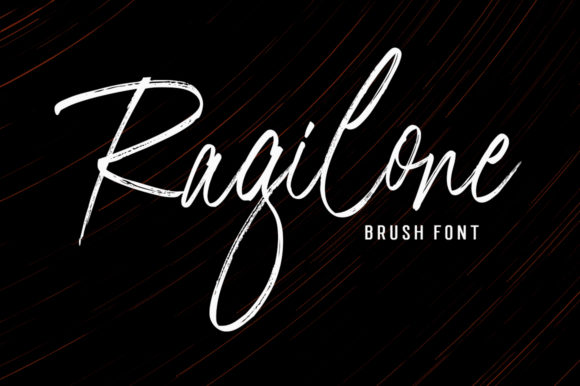
Step into the world of Ragilone Font, where elegance and authenticity intertwine to create a lettering masterpiece. This captivating script font, lovingly crafted by LetterFreshStudio, is inspired by the harmonious blend of brush pen and pencil, resulting in a design that exudes charm and originality.
With its distinctive brushstrokes and pencil textures, Ragilone Font possesses an alluring personality that sets it apart from the ordinary. Its carefully crafted characters dance across the page, evoking a sense of nostalgia and timeless charm. Whether you're a seasoned designer or a creative enthusiast, Ragilone Font is your gateway to creating designs that resonate with your audience.
Unleash your creativity and let Ragilone Font add a touch of magic to your next project. Its versatility extends from movie posters and branding to social media graphics and wedding invitations. Each letterform is meticulously designed to convey emotions and messages with unwavering clarity.
Dive into the world of Ragilone Font and explore a realm of endless possibilities. Its enchanting aura will captivate your audience, leaving them spellbound by the beauty of your designs. Embrace the power of authenticity and make a statement that speaks volumes.